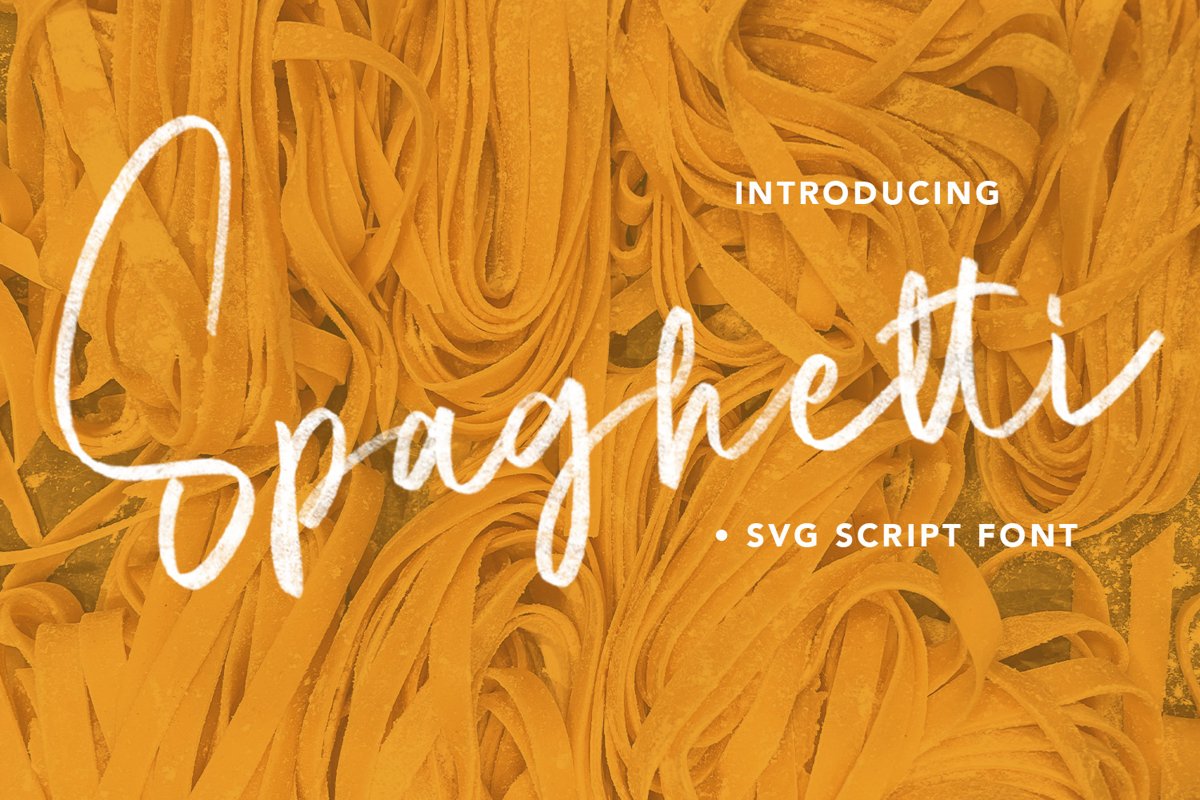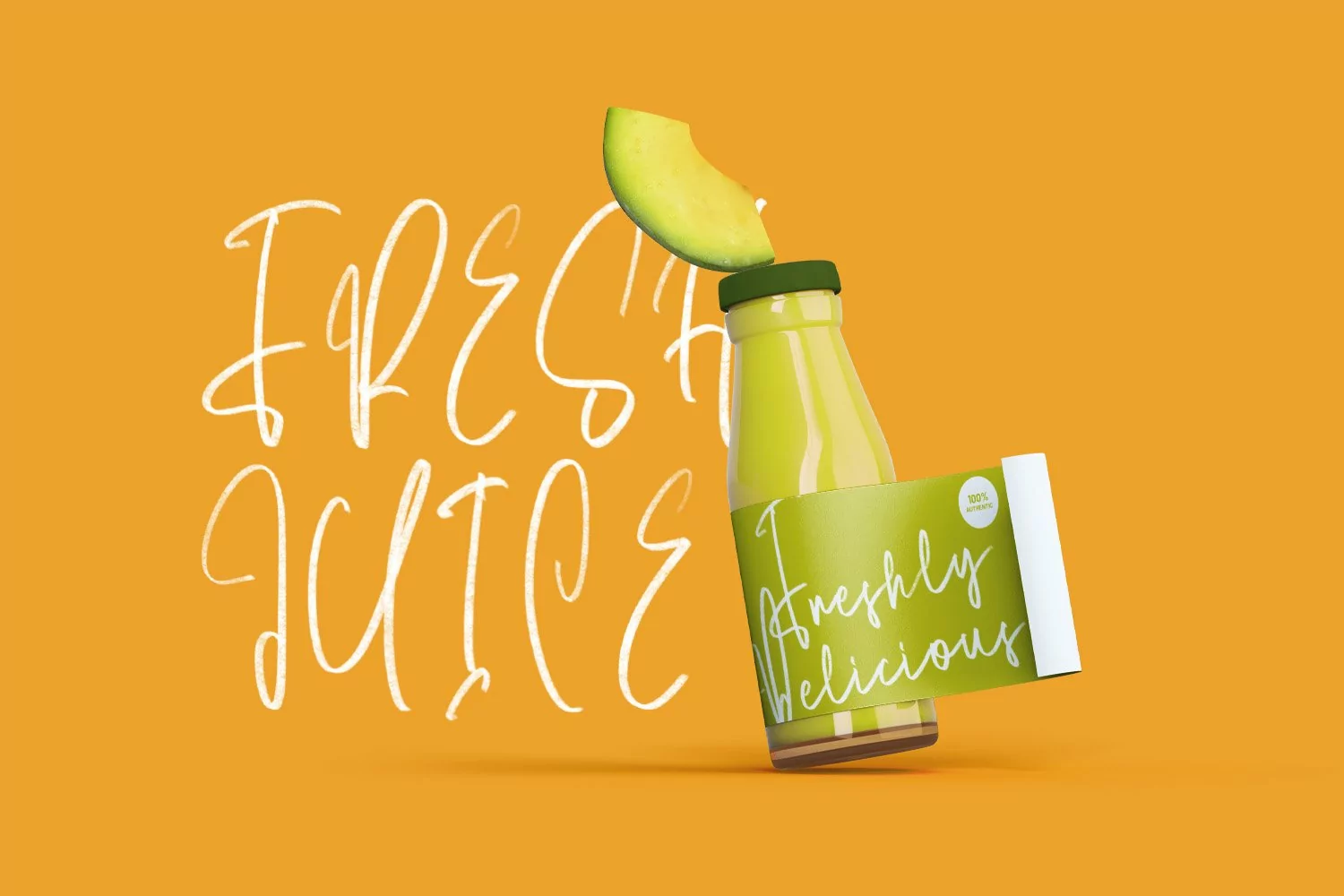
Spaghetti - SVG Script Font that contain lowercase, uppercase, symbol, and also support multi language. There’s a lot ligatures in this font. This Font also comes with ligatures, alternates and many more. this font suitable for fashion, branding, catalog and other design what you want.